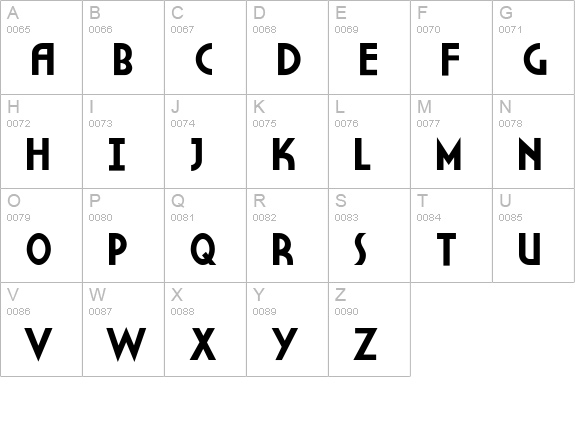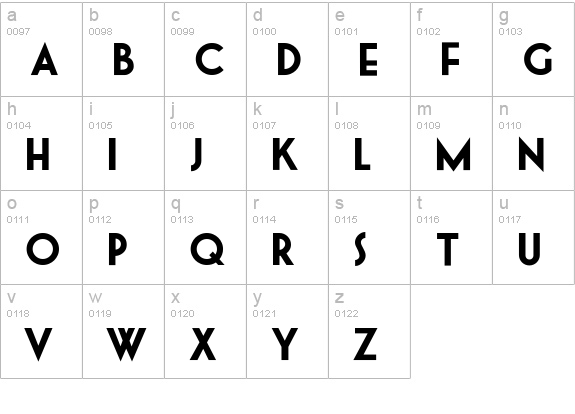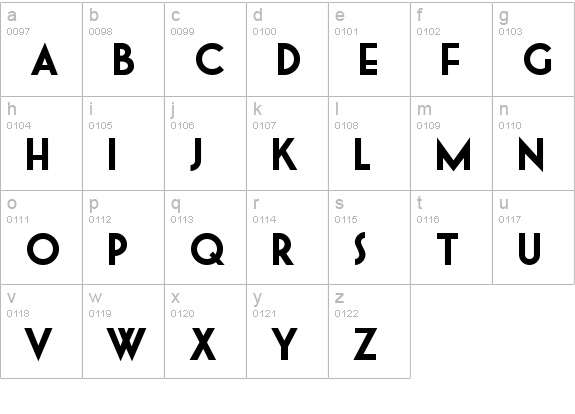
CCDutchCourage-Dark Font Details
CCDutchCourage-Dark font is a bold and striking typeface that exudes an air of mystery and sophistication. Its sleek lines and sharp angles make it perfect for adding a touch of edginess to any design project. The deep, dark tones of this font create a powerful visual impact, drawing the viewer in with its commanding presence. Best of all, CCDutchCourage-Dark font is available for free download at FontsMarket.com. This means that you can easily incorporate this stunning font into your projects without any additional cost. Whether you're working on a poster, logo, website, or any other creative endeavor, CCDutchCourage-Dark font is sure to make a bold statement and leave a lasting impression on your audience. Download it today and unleash the power of this captivating typeface in your designs.